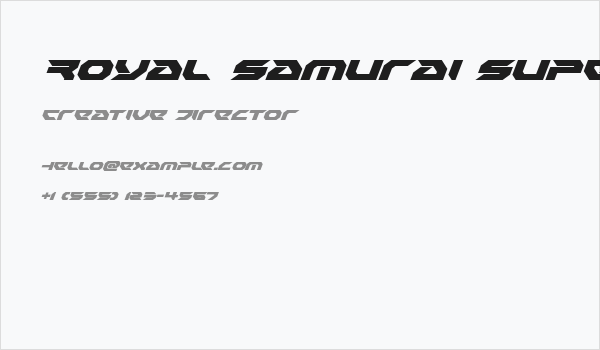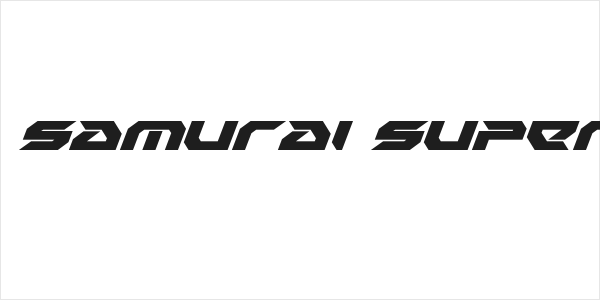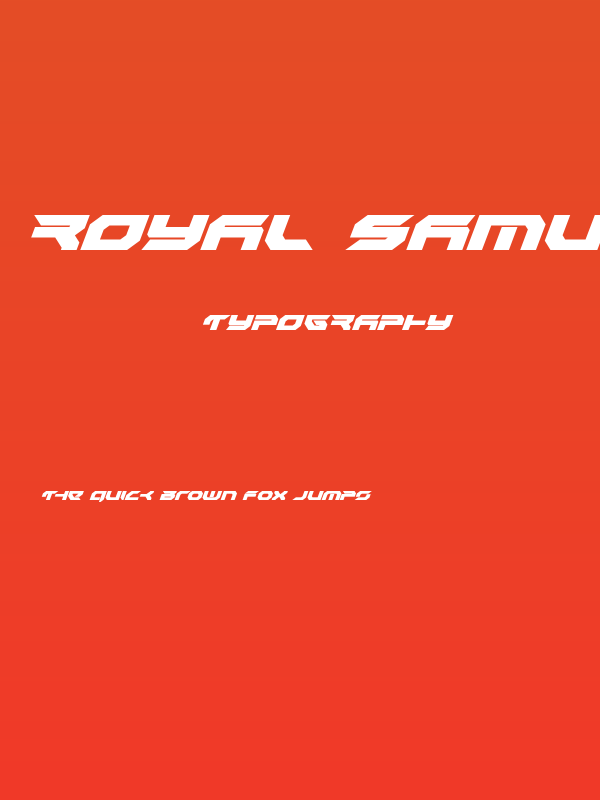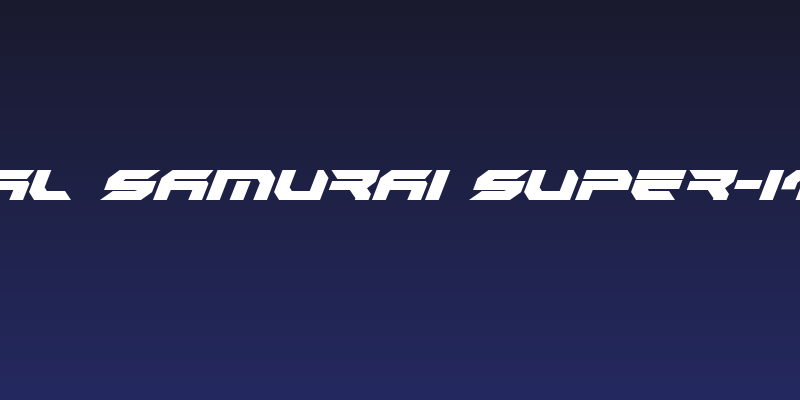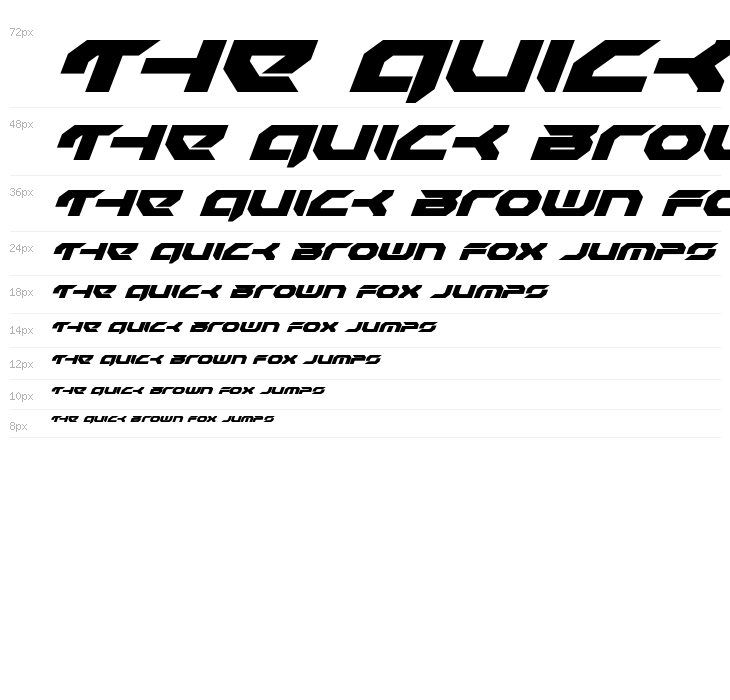
Royal Samurai Super-Italic Font
Royal Samurai Super-Italic Description
This font features a bold, angular design with a futuristic and dynamic appearance. The characters are sharply cut with a distinct geometric style, creating a sense of movement and energy. The italic slant adds to its aggressive and modern look, making it stand out in any design. The uppercase and lowercase letters maintain a consistent style, while the numbers and special characters follow the same angular theme. This font is ideal for projects that require a strong, impactful visual presence.
| Proposed Projects | Ideal for video game titles, movie posters, branding for tech companies, and sports team logos. |